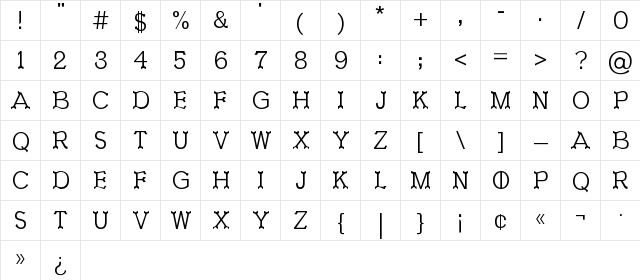
Ironworks Regular
Design Context for Ironworks Typeface
Ironworks is a composed and adaptable typeface that performs quietly and consistently across a wide range of design contexts.